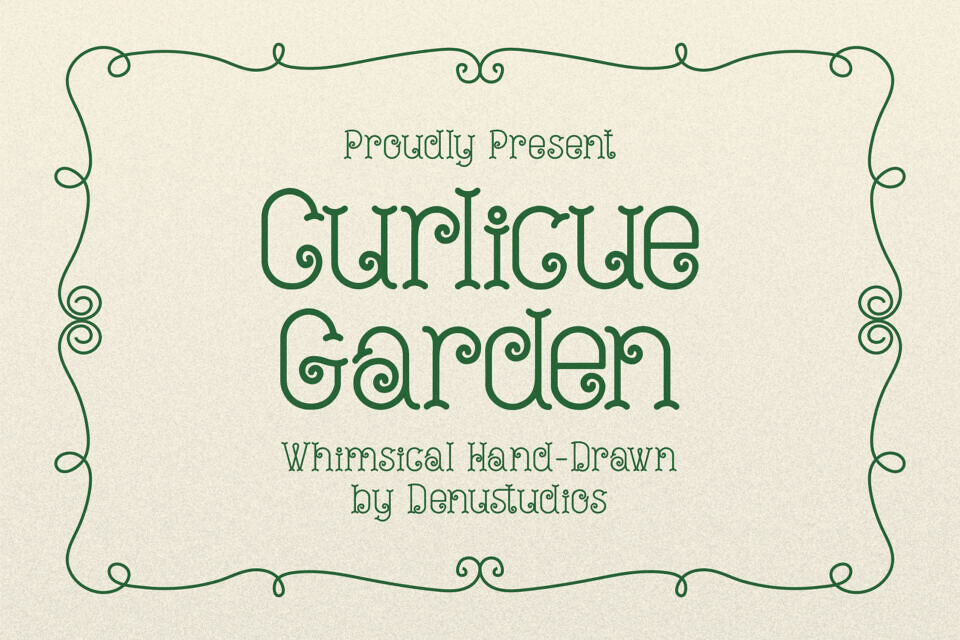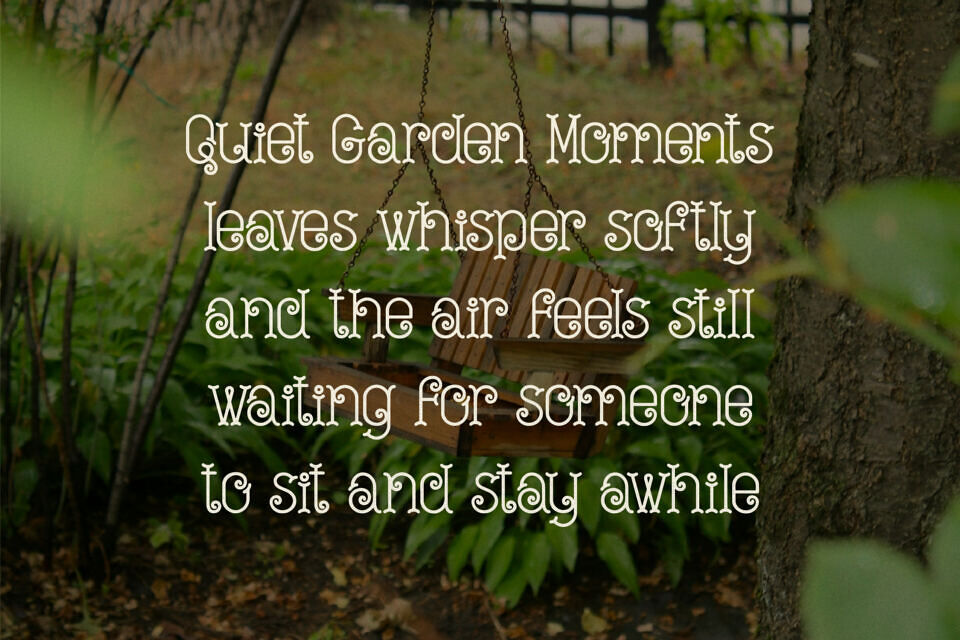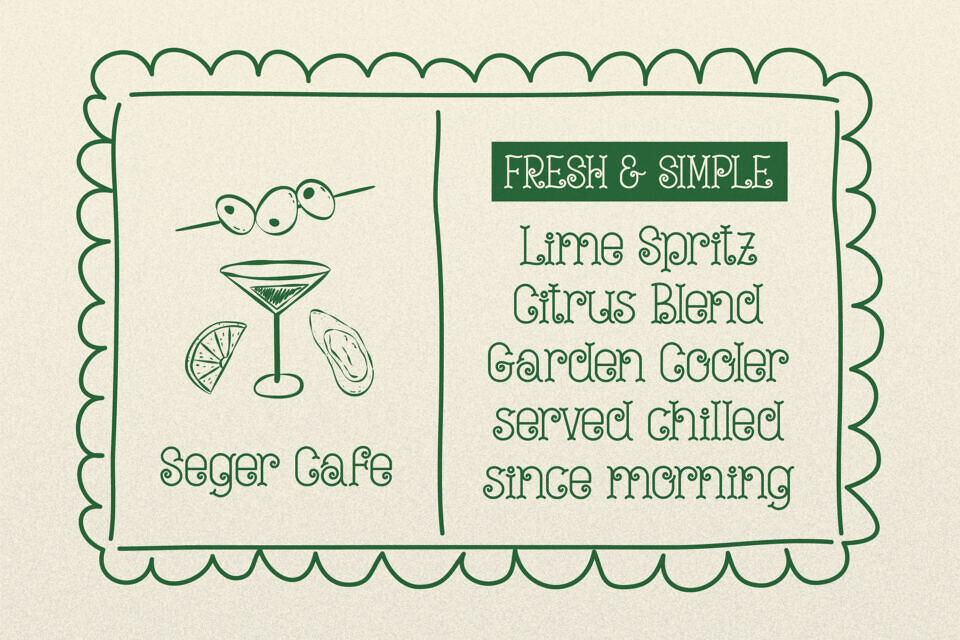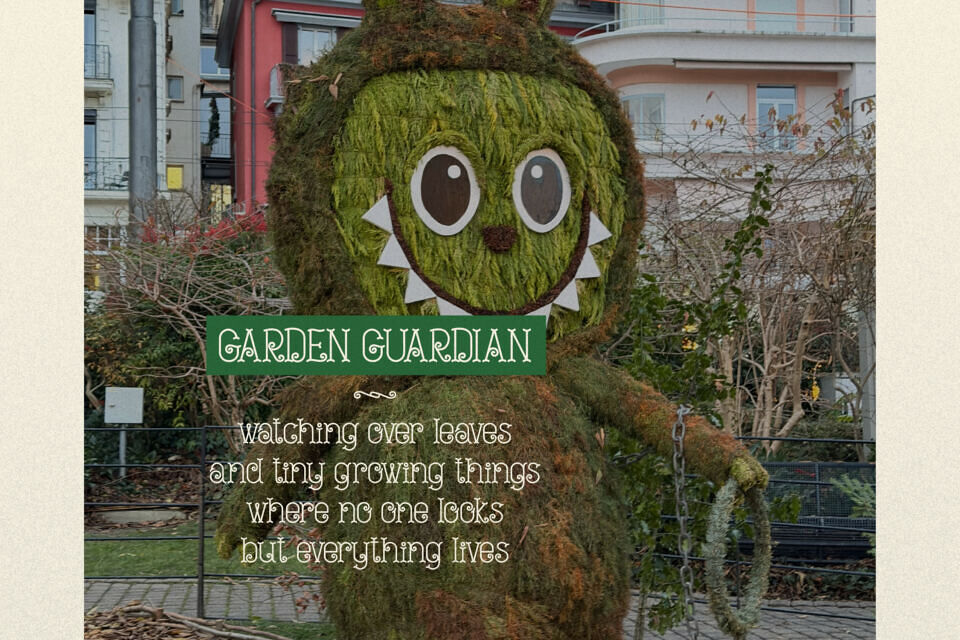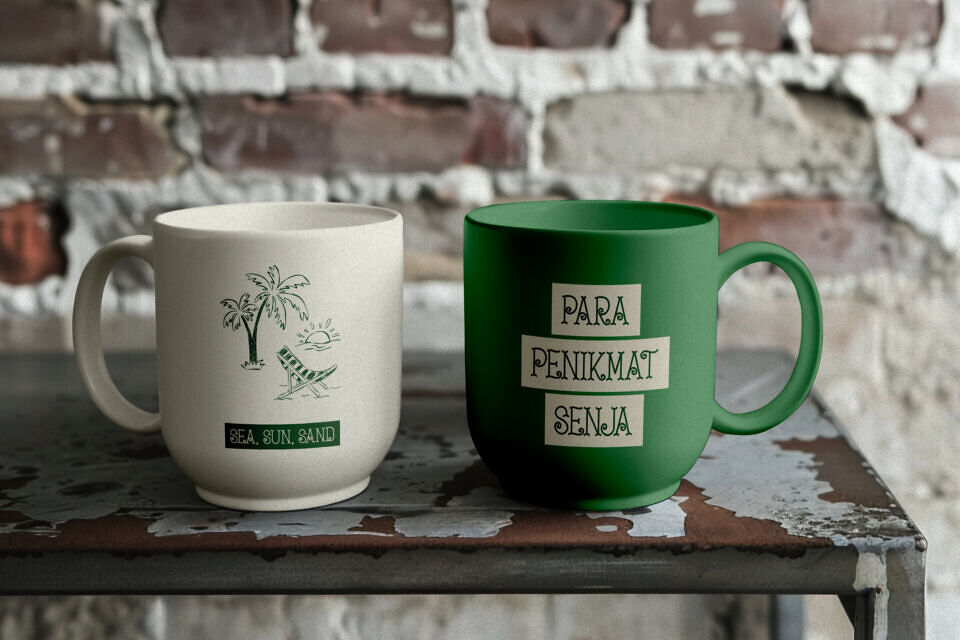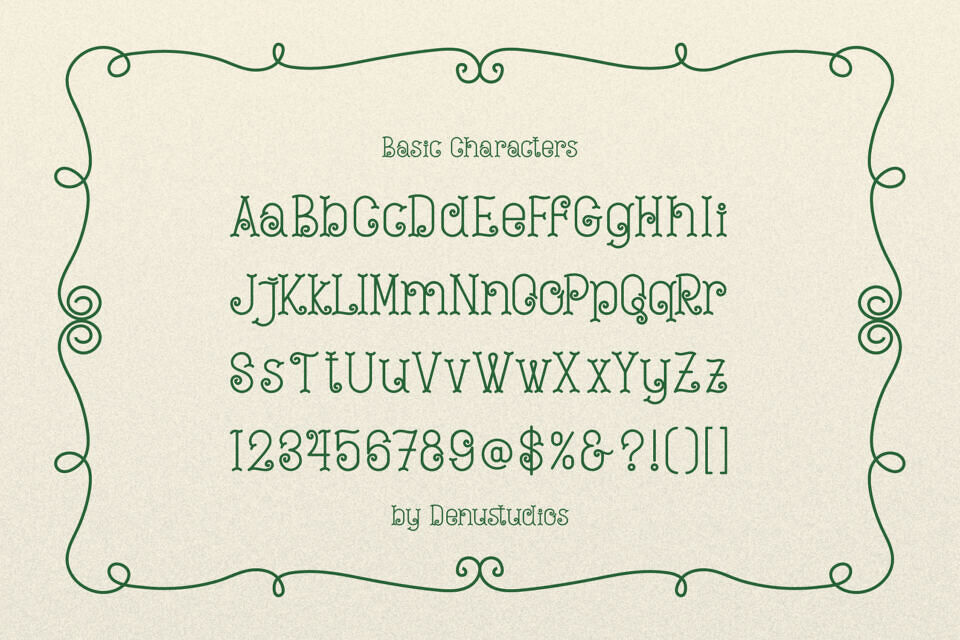
Step into a world of botanical enchantment with Curlicue Garden, a whimsical hand-drawn display font. This storybook-inspired typeface features elegant, slender letterforms adorned with rhythmic curls and spiraling flourishes that mimic the organic growth of garden vines.
With its playful “fairytale-chic” aesthetic and decorative charm, Curlicue Garden is the premier choice for independent plant nursery branding, artisanal tea shop logos, whimsical children’s book titles, and high-impact “shabby-chic” social media headers.